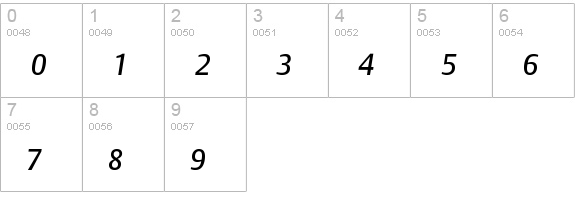
DTLArgoTCaps-LightItalic Font Details
The DTLArgoTCaps-LightItalic font is a sleek and elegant typeface that exudes sophistication and charm. With its delicate italicized style, this font is perfect for adding a touch of elegance to your designs. The light weight of the font gives it a modern and airy feel, making it versatile for a wide range of design projects. This font is ideal for use in headings, titles, and other display text where a touch of finesse is desired. Its unique design sets it apart from standard fonts, making it a standout choice for those looking to make a statement with their typography. Best of all, the DTLArgoTCaps-LightItalic font is completely free to download at FontsMarket.com. So go ahead and add this stylish and sophisticated font to your collection today!